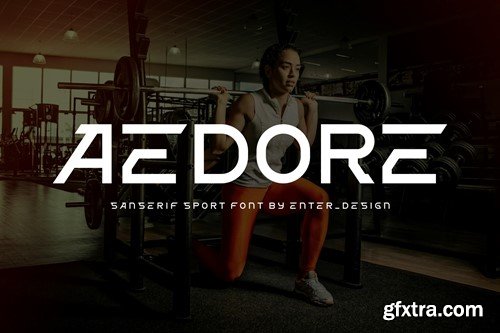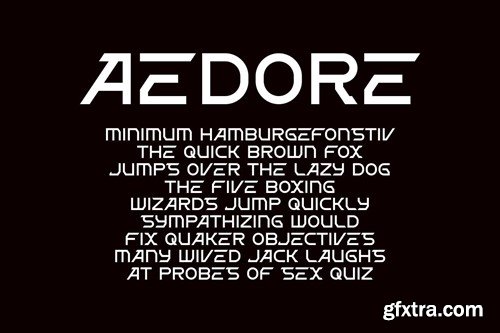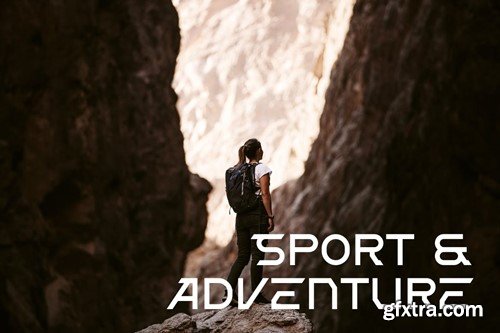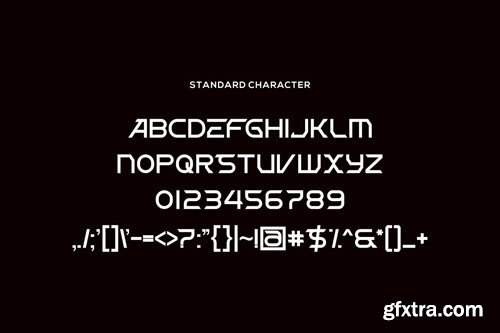
Aedore Font 5BB9WC3
Aedore Font
Introducing our new product Aedore Font - Modern Font is a bold and authentic display font. The font is suitable for any branding project like logo, esport, and many more. outstanding in a wide range of contexts. availlable